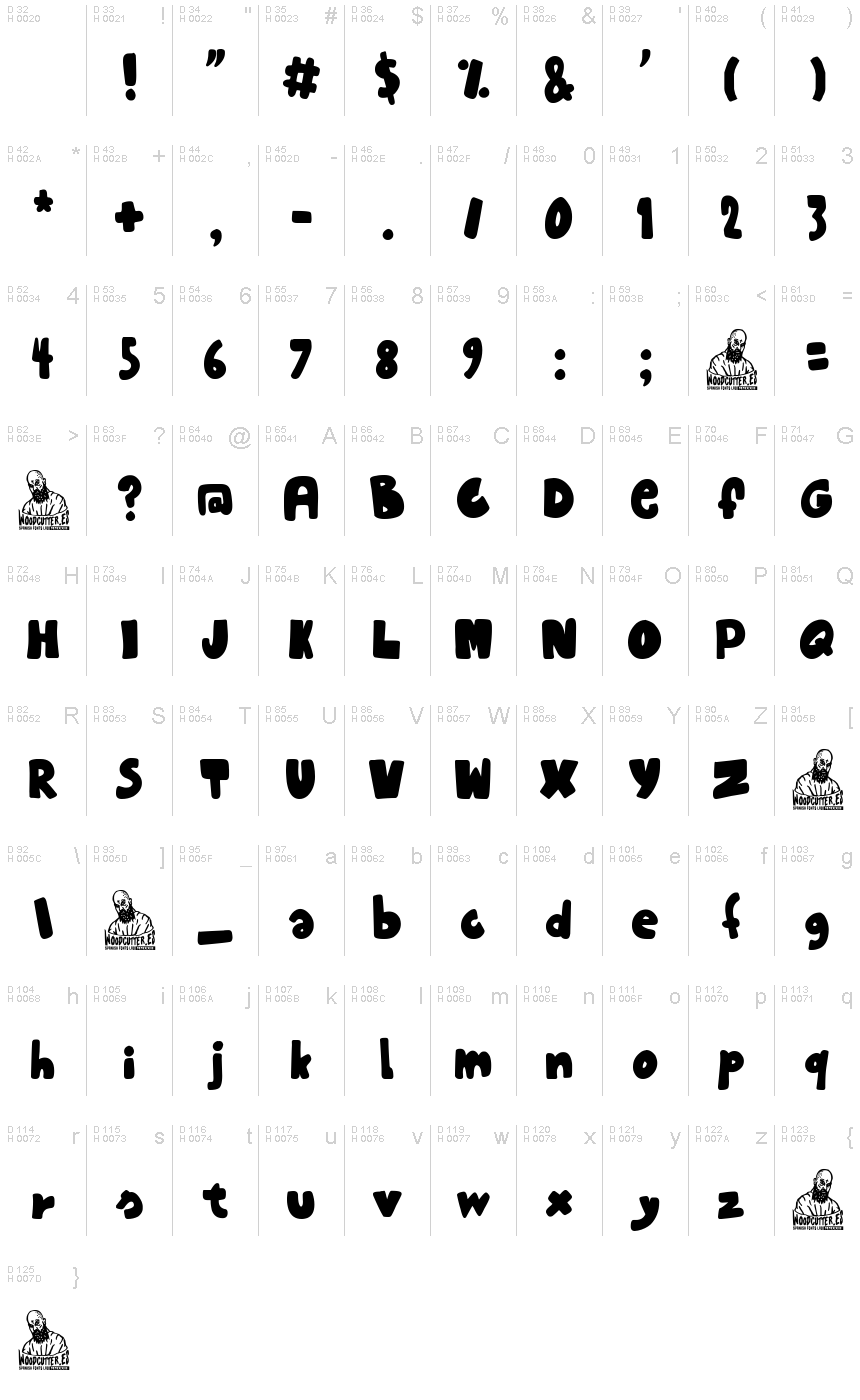
Doctor Potorro
Doctor Potorro font by Woodcutter is a display typeface. Embracing a cartoon style, its bold weight enhances the charm of each letter. Wavy strokes and varying thickness contribute to the quirky jazziness of this spontaneous display typeface, woven with organic curves and natural airflow.
Splendiferously appealing for use in poster themes that require a softer message tone like theme parks and animated movie suggestions-this personality-rich typography could also be utilized on book covers geared towards young people; children’s toys; video social posts designed around family-friendly topics or even printed craft materials such as clothing sewables!